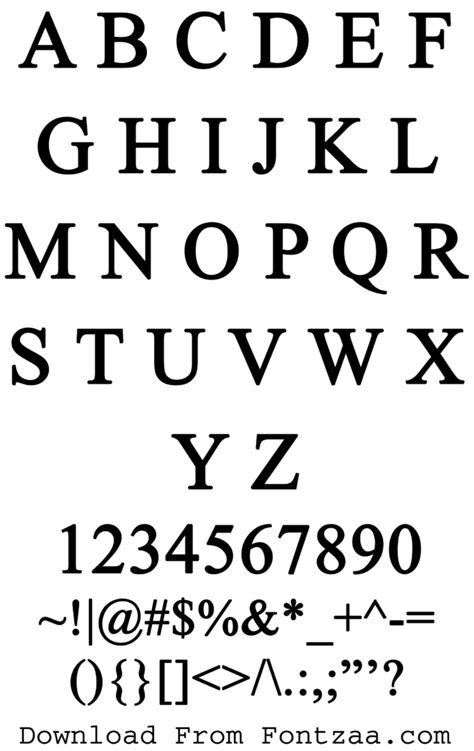
Times New Roman Font Size 12: A Comprehensive Guide
Understanding Times New Roman Font Size 12: A Deep Dive
Hey guys, let’s talk about something super fundamental yet often overlooked in the world of text: font size and font type . Specifically, we’re going to unravel the mystery and utility behind Times New Roman font size 12 . This isn’t just about picking a font; it’s about understanding how this classic combination impacts readability, professionalism, and even the perception of your content. You’ve probably seen it everywhere – from your school essays to official documents, and maybe even in some of those slightly more formal emails. It’s a workhorse, and for good reason! We’ll explore why it’s stuck around for so long, when it’s the absolute best choice, and maybe even touch on when you might want to consider something else. So, buckle up, because we’re about to go deep into the world of 12-point Times New Roman. Get ready to become a font-size guru!
The Reign of Times New Roman: Why It’s a Classic
So, what’s the big deal with Times New Roman font size 12 , anyway? Well, guys, this font has been around the block a few times. It was designed way back in 1931 by Stanley Morison for The Times newspaper in London. Its main goal? To make the newspaper’s text more compact and easier to read on newsprint. Think about it: newspapers needed to fit a lot of words on a single page without making the reader squint. Times New Roman, with its relatively condensed letterforms and clear serifs (those little decorative strokes at the ends of letters), was perfect for the job. The serifs actually help guide the eye along the line of text, making it super efficient for long passages. This historical context is key to understanding its enduring popularity. It was engineered for legibility in print, and that core strength hasn’t faded, even in our digital age. When you set something in Times New Roman font size 12 , you’re tapping into decades of typographic expertise aimed squarely at making words easy to consume. It’s a tried-and-true standard that conveys a sense of tradition, formality, and seriousness. This is why it became the default for so many academic papers, legal documents, and business reports. It signals that you mean business and that your content is presented in a clear, professional manner. Unlike some trendier fonts that might feel dated in a few years, Times New Roman has a timeless quality. It’s like a well-tailored suit – always appropriate, never out of style. Its familiarity also plays a role; people are accustomed to reading it, which reduces cognitive load. We don’t have to consciously think about deciphering the letters, freeing up our mental energy to focus on the content itself. This effortless readability is a superpower for any writer trying to get their message across effectively. So, when you’re staring at a blank document and wondering what font to choose, remember the legacy behind Times New Roman. It’s not just a default; it’s a deliberate choice that has served readers and writers for generations. Its robustness in various printing and digital formats further cements its status as a go-to option for anyone prioritizing clarity and professionalism. It’s the font equivalent of a firm handshake – dependable and reassuring.
The Magic Number: Why Size 12 is Key
Now, let’s talk about the size 12 part of Times New Roman font size 12 . Why 12 points? This isn’t arbitrary, guys! In typography, a “point” is a unit of measurement. There are 72 points in an inch. A 12-point font size is generally considered the standard for body text in most printed materials and is widely adopted for digital documents as well. Why? Because it strikes an almost perfect balance. It’s large enough to be easily readable without strain, even for extended periods, but not so large that it feels overwhelming or wastes space. Think about reading a book or a magazine article. Most of them use a font size in this ballpark. If the text were too small (say, 8 or 9 points), your eyes would get tired quickly, and you might even miss details. Conversely, if it were too large (like 16 or 18 points for body text), the lines would become short, choppy, and might even look unprofessional or childish, depending on the context. Times New Roman font size 12 offers that sweet spot. It provides ample visual space for each character, allowing the distinct shapes of the letters, including those helpful serifs, to be clearly perceived. This clarity is crucial for comprehension. Studies have shown that font size has a significant impact on reading speed and comprehension. A font that’s too small forces the reader to work harder, potentially leading to errors or a feeling of frustration. A font that’s too large can disrupt the flow and make the text seem less dense and perhaps less authoritative. The 12-point size, especially within the familiar confines of Times New Roman, has become a universally recognized benchmark for legible body text. It’s what educators expect for essays, what many businesses use for reports, and what you’ll often see in published books. This widespread adoption means that readers are already comfortable with it, requiring no extra effort to adjust. It’s a safe, reliable, and highly effective choice for ensuring your message is received clearly and comfortably. So, the next time you set your font, remember that size 12 isn’t just a number; it’s a carefully calibrated size that optimizes the reading experience, making Times New Roman font size 12 a powerhouse combination for clarity and professionalism. It’s the goldilocks zone of typography – just right! It ensures that your words are accessible and comfortable for the widest possible audience, without compromising on the aesthetic or the informational integrity of your text.
When to Use Times New Roman Font Size 12 (And When to Maybe Think Twice)
Alright, let’s get practical, guys. When is Times New Roman font size 12 your absolute best friend? The short answer? Formal documents, academic papers, legal briefs, business reports, and anything requiring a traditional, professional aesthetic. If you’re writing a thesis, submitting a resume, drafting a cover letter, or creating a formal proposal, this is your go-to combo. It screams professionalism, adherence to standards, and seriousness. Think about it: most professors and hiring managers expect this format. Deviating from it might, unfortunately, signal a lack of attention to detail or an unfamiliarity with standard academic or professional conventions. Times New Roman font size 12 has become the unspoken benchmark for these kinds of submissions, making it a safe and often mandatory choice. It’s reliable, easily readable on most screens and in print, and universally understood. It doesn’t distract from the content; instead, it presents the content in a clean, organized, and authoritative way. You can trust it to do its job without drawing unnecessary attention to itself. It’s the typographic equivalent of a plain, high-quality envelope – it protects the contents and presents them without fuss.
However, are there times when you might want to steer clear? Absolutely! For web content, presentations, marketing materials, or anything aiming for a more modern, casual, or visually engaging feel, Times New Roman might not be the best fit. On screens, especially at smaller sizes or on high-resolution displays, Times New Roman can sometimes appear a bit dated or even slightly fuzzy compared to sans-serif fonts (fonts without those little serifs). Sans-serif fonts like Arial, Calibri, or Helvetica are often preferred for web design because they tend to render more crisply on digital screens. They offer a cleaner, more contemporary look. If you’re creating a blog post, a social media graphic, or a slide for a presentation, you’ll likely want to explore other options. Think about the vibe you want to convey. If it’s friendly, energetic, and modern, a serif font like Times New Roman might feel a bit too stuffy. Consider your audience and the medium. For younger audiences or digital-first content, a sans-serif font in a slightly larger size might be more appropriate. For example, a website might use Arial 14pt or Calibri 11pt for its body text. A presentation might use a bold sans-serif font to grab attention. The key is to match the font choice to the purpose and context. While Times New Roman font size 12 is a stalwart of formality, don’t be afraid to experiment when the situation calls for it. Exploring fonts like Georgia (a more readable serif for screens) or various sans-serif options can help you achieve the desired impact. Ultimately, the goal is to make your content as accessible and appealing as possible to your intended audience, using the best typographic tools available for the job. So, while Times New Roman 12pt is a classic for a reason, remember it’s just one tool in a vast typographical toolbox.
Tips for Using Times New Roman Font Size 12 Effectively
Now that we’ve established the power and place of Times New Roman font size 12 , let’s talk about how to use it like a pro, guys! It’s not just about selecting it and forgetting about it. There are subtle nuances that can make a big difference in how your document is perceived. First off, consistency is king . Whatever you do, stick to 12pt for your main body text throughout the entire document. Mixing font sizes within the body can look messy and unprofessional. Use headings and subheadings (in larger or bolder versions of Times New Roman, or even a complementary font if appropriate for the style guide) to break up text and guide the reader. Pay attention to line spacing (leading). While 12pt text is generally readable, default line spacing can sometimes feel a bit cramped. For enhanced readability, especially in longer documents, consider increasing the line spacing slightly. A common setting is 1.15 or 1.5 lines. This creates more white space between lines, making it easier for the eye to track from one line to the next and reducing fatigue. Experiment to find what feels comfortable. Use italics and bold sparingly and purposefully. Bold is great for emphasizing keywords or headings, while italics are typically used for titles of works (books, movies), foreign words, or subtle emphasis. Overusing them in Times New Roman font size 12 can clutter the text and dilute their impact. Remember, this font is already quite formal, so let its inherent structure do most of the heavy lifting. Consider the page margins. Generous margins (usually at least 1 inch or 2.54 cm on all sides) provide breathing room around the text block. This white space is crucial for readability and gives your document a clean, professional appearance, preventing the text from feeling crammed onto the page. When exporting to PDF, always double-check the font embedding. Ensure that Times New Roman is embedded correctly so that it displays accurately on any device, regardless of whether the recipient has the font installed. This is a common pitfall that can lead to your carefully formatted document looking completely different when opened elsewhere. Finally, proofread, proofread! Even the best font choice can’t save a document riddled with errors. Reading your work aloud can help you catch awkward phrasing and typos that your eyes might skim over. By following these tips, you can leverage the strengths of Times New Roman font size 12 to create documents that are not only compliant but also genuinely pleasant and easy to read. It’s about making your message shine, and good typography is a key part of that.
The Future of Times New Roman in a Digital World
So, is Times New Roman font size 12 destined to become a relic of the past, guys? While the digital landscape is constantly evolving, and sans-serif fonts have definitely gained traction for web and screen use, I wouldn’t count Times New Roman out just yet. Its deep roots in print and its status as a universally recognized standard mean it still holds significant weight. For many formal contexts, like academic submissions or legal documents, it’s likely to remain the preferred, or even required, font for the foreseeable future. Think of it as a classic car – still functional, still appreciated for its history and reliability, even if newer models offer different features. On screens, its readability has actually improved with higher resolution displays. While it might not be the trendiest choice for a cutting-edge website, its clarity is undeniable. Furthermore, the accessibility aspect is crucial. Many people with visual impairments find serif fonts, like Times New Roman, easier to read because the serifs can help distinguish between similar-looking characters (like ‘i’ and ‘l’, or ‘c’ and ‘e’). So, in terms of inclusive design, it still has a role to play. The rise of responsive design and variable fonts might introduce new ways to present text across devices, but the fundamental need for clear, legible typography remains. Times New Roman font size 12 will continue to be a reliable option for situations where clarity, formality, and a traditional aesthetic are paramount. It’s the font equivalent of a trusted reference book – always there, always dependable. While we might see it used less often in contexts demanding a highly modern or dynamic visual style, its core strengths ensure its continued relevance. It’s a testament to good design that a font created nearly a century ago can still be a go-to choice for professionals and students worldwide. So, whether you love it or find it a bit vanilla, Times New Roman font size 12 isn’t going anywhere soon. It’s a foundational element of written communication, and its legacy is secure. It represents a bridge between the tactile world of print and the fluid digital realm, offering a sense of continuity and established quality that many still value highly. Its endurance is a quiet victory for functional design in a world often chasing the next big thing.
Conclusion: The Enduring Power of Times New Roman Font Size 12
So there you have it, guys! We’ve journeyed through the history, the significance, and the practical applications of Times New Roman font size 12 . It’s more than just a default setting; it’s a carefully considered choice that has shaped how we read and present information for decades. Its legacy as a highly legible, professional, and universally recognized font makes it indispensable for formal documents, academic work, and business communications. While the digital age has introduced a plethora of new typographic options, and sans-serif fonts often dominate web design, Times New Roman font size 12 maintains its strong position due to its timeless clarity and established conventions. We’ve seen how its design, optimized for readability in print, translates effectively to many digital contexts, especially when considering factors like screen resolution and the need for a professional appearance. Remember the key takeaways: use it when formality and tradition are expected, consider sans-serifs for more modern or web-based content, and always pay attention to details like line spacing and margins to maximize its effectiveness. The